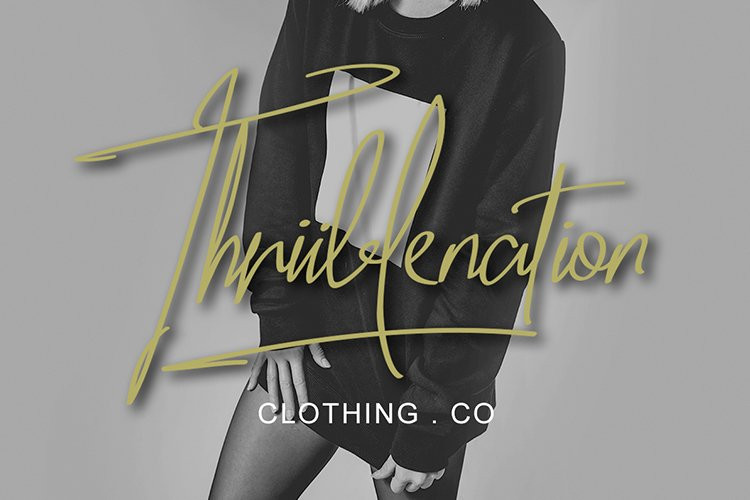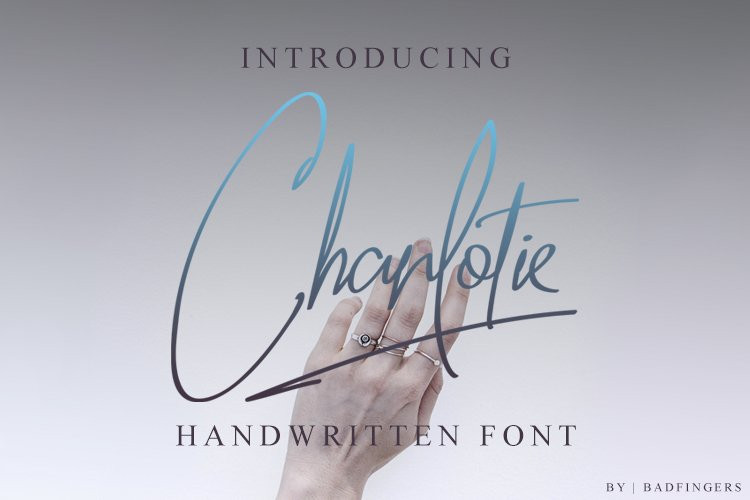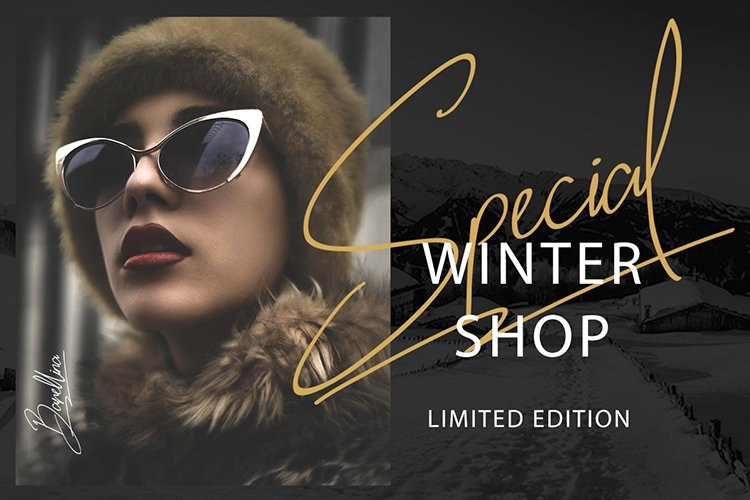
Charlotie Font
Charlotie FontCharlotie is a handwritten font that is different from the previous font, which is now equipped with swash.
Natural handwriting and suitable for logos, printed quotes,
invitations, invitation cards, product packaging business cards,
canopies, covers, letterhead, posters, clothing designs, signatures,
magazines, and more!